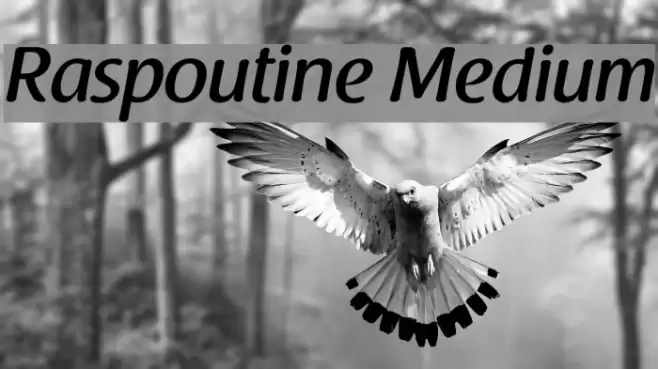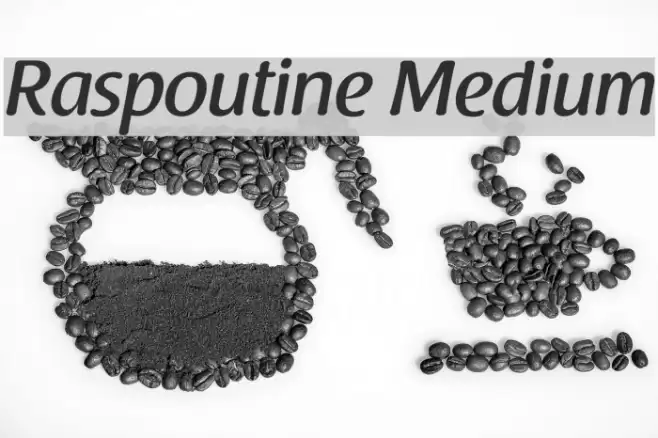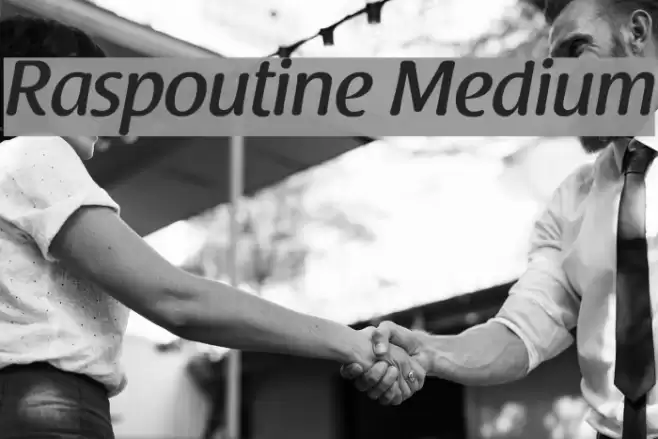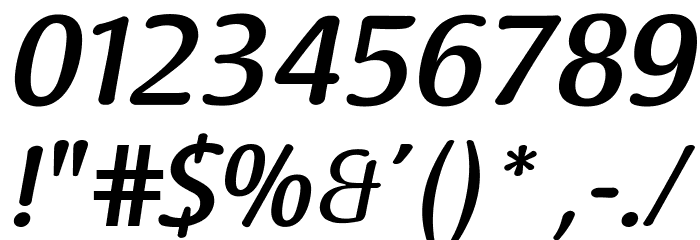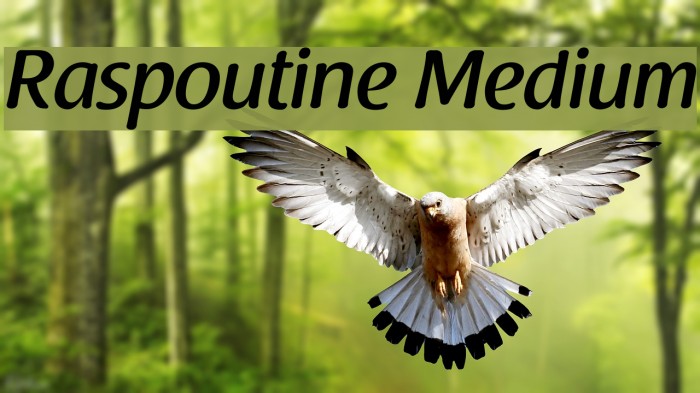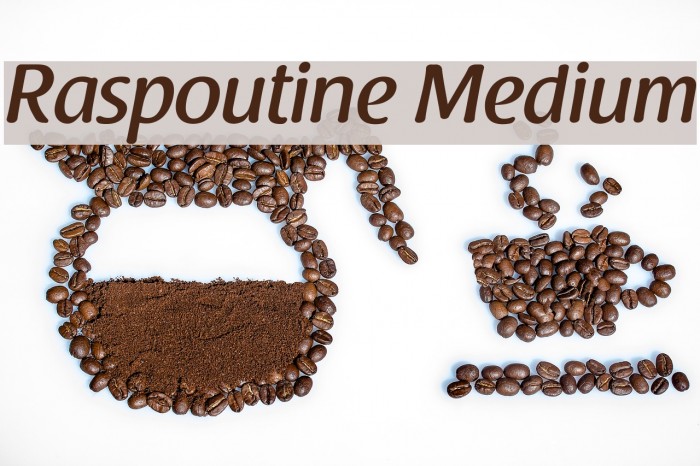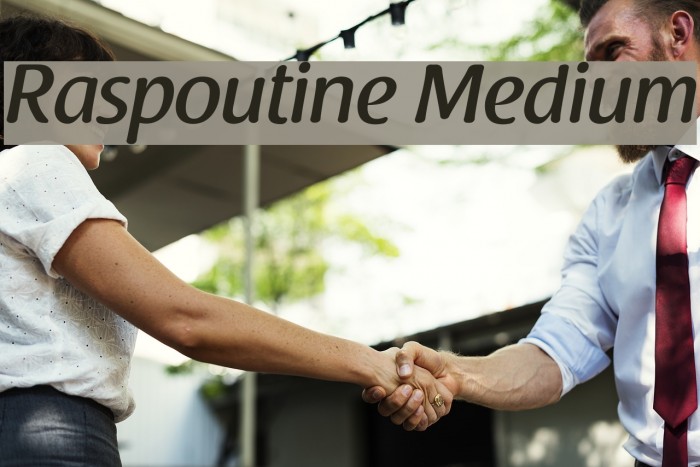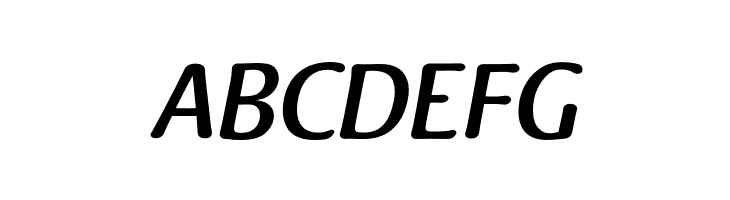
Raspoutine Medium Font
Raspoutine Medium Description
This font features a modern and sleek design with slightly rounded edges that give it a friendly and approachable feel. The characters are slightly slanted, adding a dynamic and energetic touch. The uppercase letters are bold and prominent, while the lowercase letters maintain a consistent flow with smooth curves. The numerals are clear and easy to read, making them suitable for various applications. The special characters are well-defined, ensuring versatility in design projects. Overall, this font balances elegance with readability, making it ideal for both digital and print media.
A modern, slightly slanted font with rounded edges and a friendly appearance from Uncategorized fonts.
- Proposed Projects: Ideal for branding, advertising, digital content, and print media where a modern and approachable look is desired.